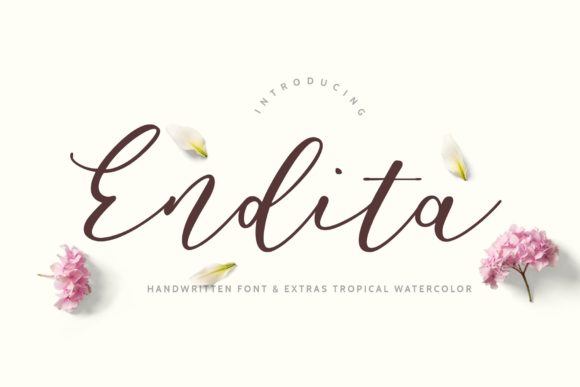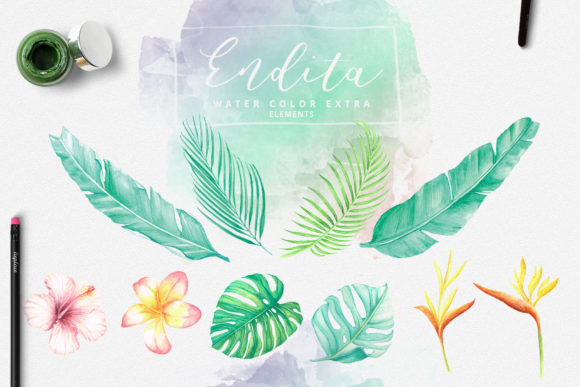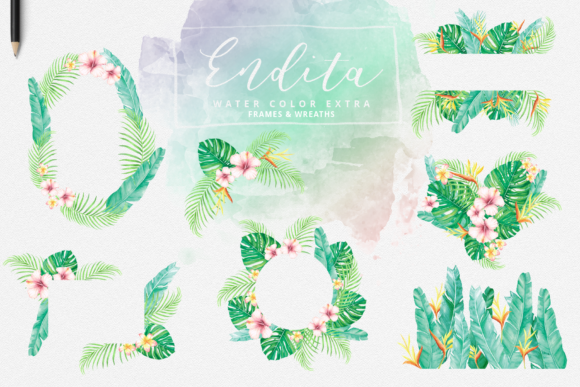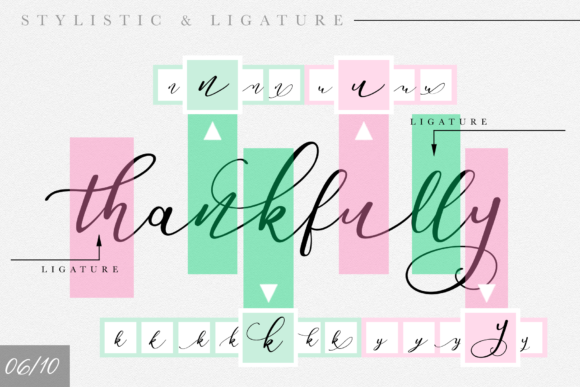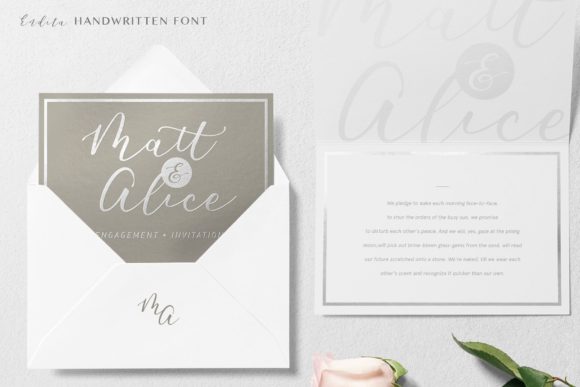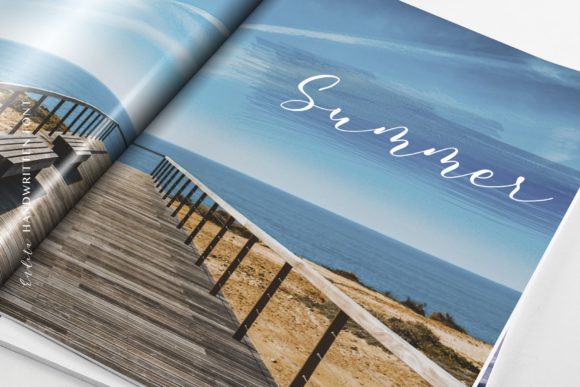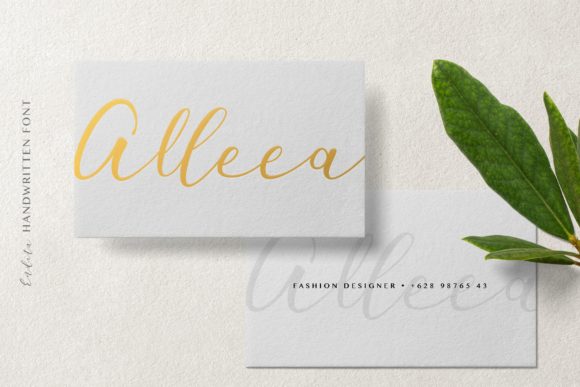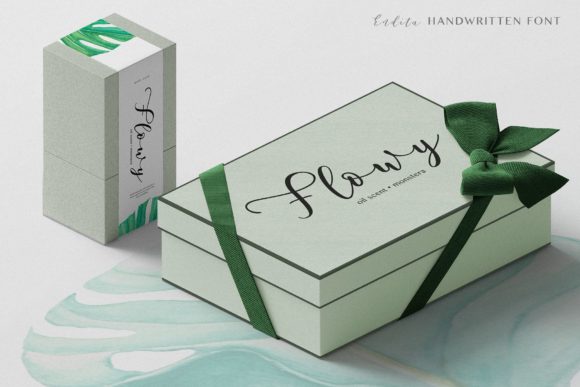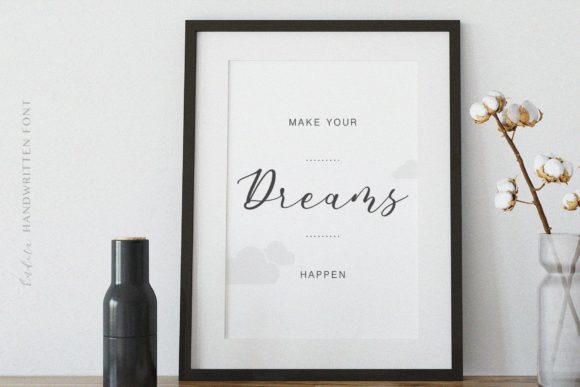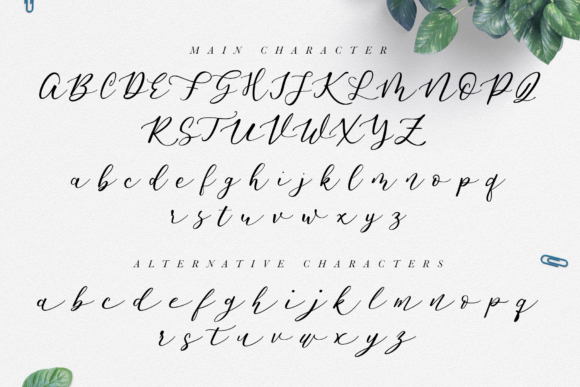
Endita Font
About Endita Font
Endita is a beautiful flowing handwritten font with a stylish appeal. It will add a romantic touch to any crafting project.